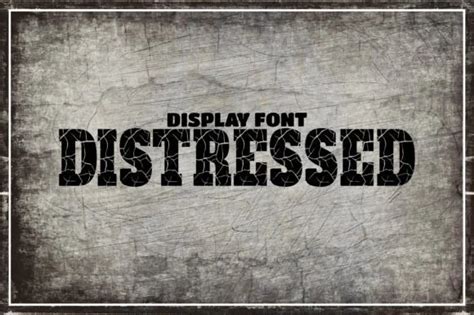
Unearth the Creativity: Top 10 Free Distressed Type Fonts to Elevate Your Designs
Are you tired of using the same old boring fonts in your designs? Want to add a touch of vintage and distress to your creations? Look no further! In this article, we've compiled a list of the top 10 free distressed type fonts that will elevate your designs to the next level.
Did you know that using unique fonts can make your designs stand out from the competition? According to a study, typography can have a significant impact on how people perceive and remember a message. That means choosing the right font is crucial for getting your message across effectively.
But finding the perfect font can be a daunting task, especially if you're on a budget. That's why we've done the research for you and collected some of the best free distressed type fonts that are perfect for any project.
These fonts are not only stylish and eye-catching but also versatile enough to use in any design, whether it's for print or digital media. Whether you're creating posters, websites, logos, or social media graphics, these fonts will help you take your designs from ordinary to extraordinary.
So, if you're ready to unleash your creativity and give your designs a unique edge, check out our list of the top 10 free distressed type fonts. You won't regret it!
If you're looking for a way to add some vintage appeal to your designs, distressed type fonts are the way to go. These fonts are popular thanks to their roughened edges, scratches, and grunge textures that give your designs an edgy look. However, finding high-quality free fonts that fit this category can be a daunting task. In this blog post, we will highlight the top 10 free distressed type fonts that can elevate your designs.
Why use distressed type fonts?
Distressed type fonts are popular among designers because they add character and personality to designs. They work best with vintage, retro or grunge designs, giving them a distinct style. Distressed fonts can also help create a sense of nostalgia or reflect a worn-out look, making your designs unique.
Detailed Description
A Love of Thunder
A Love of Thunder is a powerful font designed by Caleb Kimbrough. It offers a modern distressed style and bold letters with a scratchy texture. This font works well in posters, flyers, logos, and t-shirt designs. You can use it for both personal and commercial projects.
Eastman
Eastman was designed by Tim Wheater, and it's inspired by the Art Deco era. It features a distressed style with roughened edges and cracked textures. The font includes uppercase, lowercase, numbers, and special characters. You can use it for both personal and commercial projects.
Black Mask
Black Mask is a stunning distressed font created by Lukas Krakora. It features vintage detailing with rough outlines and striking textures. It's perfect for t-shirts, book covers, posters, and branding materials. You can use it in any personal and commercial project without restrictions.
Belluga
Belluga is a brush-style font created by Pixel Surplus. It has a distinctive worn-out look that adds character and depth to your designs. The font is available in both uppercase and lowercase letters with a unique grunge style. You can use it for both personal and commercial projects without any restrictions.
Burnthouse
Created by Florian Klauer, Burnthouse is a unique handwritten font with a distressed look. The font includes upper and lowercase letters, numbers, and punctuations. It's perfect for posters, t-shirts, logo designs, and branding materials. The font is free for both personal and commercial use.
Hensa
Hensa is a beautiful script font created by Mix-Fonts. It features a cursive style with sticky lines and ragged edges that highlights its distressed detail. The font is perfect for creating wedding invitations, greeting cards, and social media posts. You can use it for both personal and commercial projects.
Eagle Lake
Designed by Vernon Adams, Eagle Lake is a formal-looking font with a distressed effect. It features a clean sans-serif style with irregular edges and scratches. The font includes uppercase and lowercase letters, numbers, and special characters. You can use it for personal and commercial projects for free.